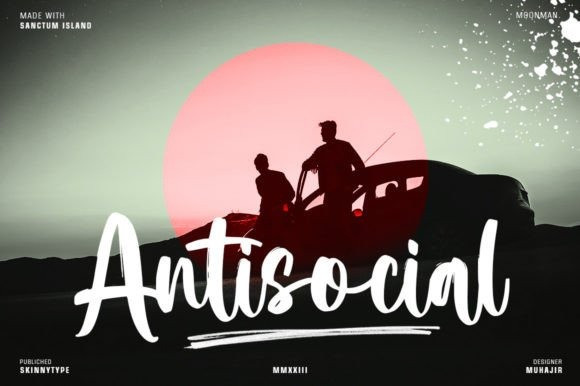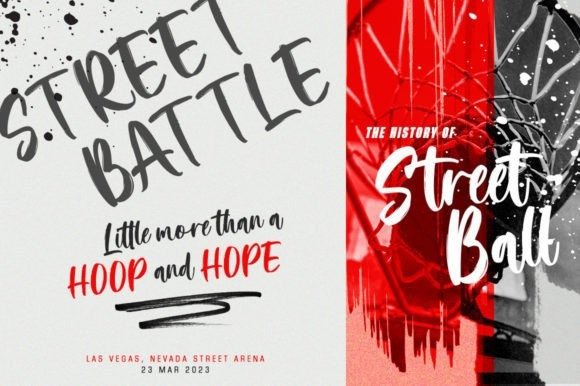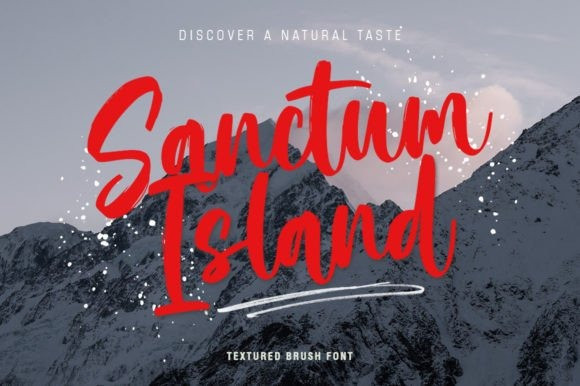
Sanctum Island Font
Sanctum Island is a captivating and distinctive script font that adds a touch of mystery to any design project. Its irregular letterforms, uneven strokes, and bold lines create a sense of intrigue and uniqueness, making it an ideal choice for book covers, album art, and branding that requires a standout look. Sanctum Island is a font that invites exploration and discovery.